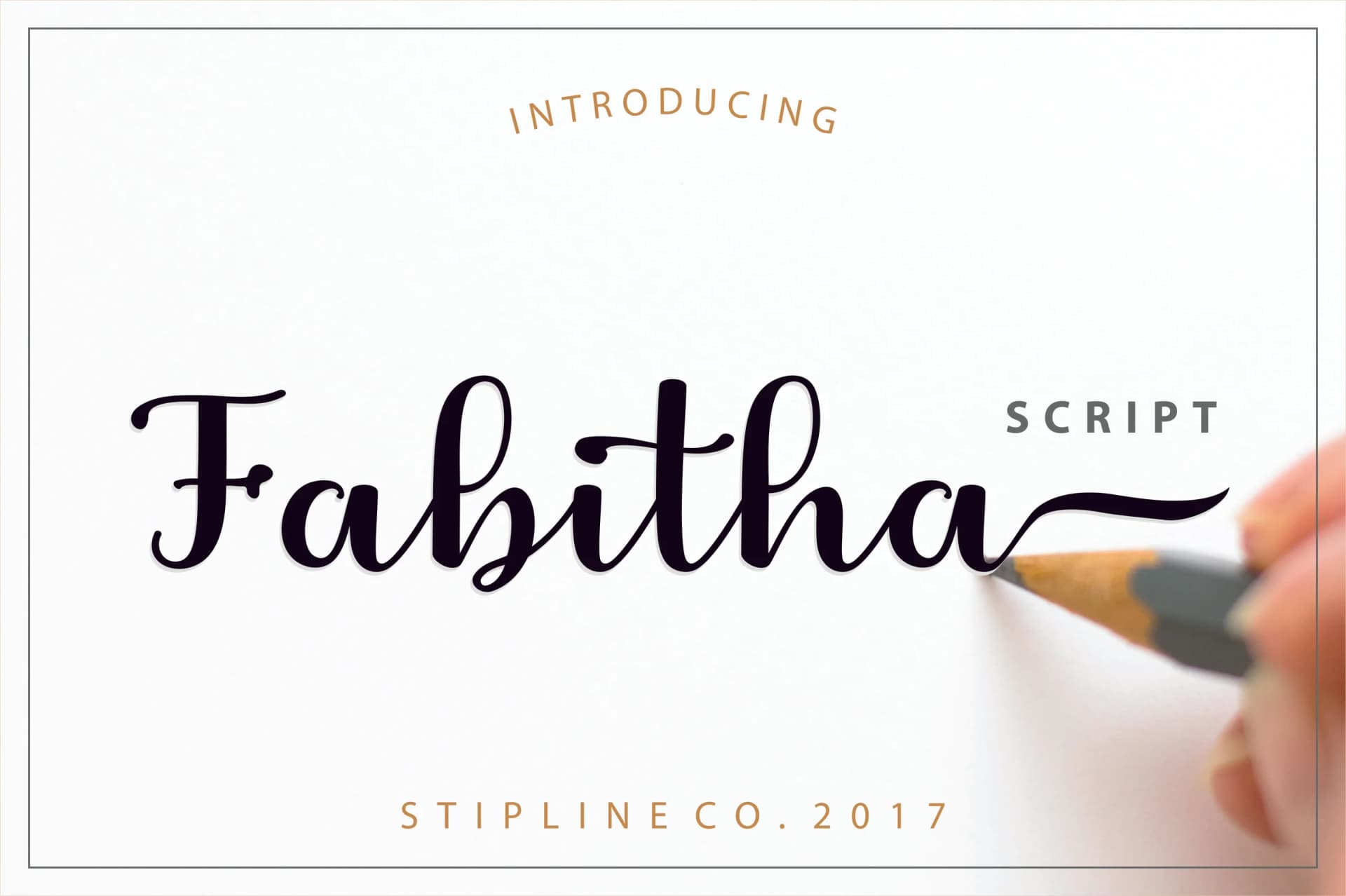
Fabitha Font by Stipline Studios is a contemporary calligraphic script that brings sophisticated character to creative projects. With its flowing letterforms and deliberate strokes, this typeface strikes a balance between refined elegance and approachable personality, making it equally at home in professional and personal design applications. This script font excels in upscale branding contexts, think luxury cosmetics packaging, high-end stationery suites, and artisanal product labels that demand visual distinction. Designers frequently turn to typefaces like this for wedding invitation designs, where the graceful curves convey both formality and romance simultaneously. It also works beautifully for event signage and boutique business cards, as well as custom greeting cards that demand a polished, distinctive aesthetic. The typeface carries enough personality to stand out while remaining readable across various sizes. Beyond special occasion materials, Fabitha lends itself to social media graphics, monogram designs, and small-batch craft labeling where distinctive personality matters most. Its readable letterforms ensure clarity whether displayed at large sizes or in smaller applications. Whether you're creating a luxury brand identity, designing invitations for life's milestone moments, or crafting personalized stationery pieces, this typeface brings intentional character without feeling overwrought or difficult to implement. Discover what Fabitha Font can bring to your next creative project by adding it to your Creative Fabrica library.
- Elegant, Flowing, Fabitha
Fabitha Font is a script font that shines as a display or heading face. Pair it with a clean sans-serif or serif font for body text β the contrast creates a clear hierarchy while the two styles stay balanced and easy to read.